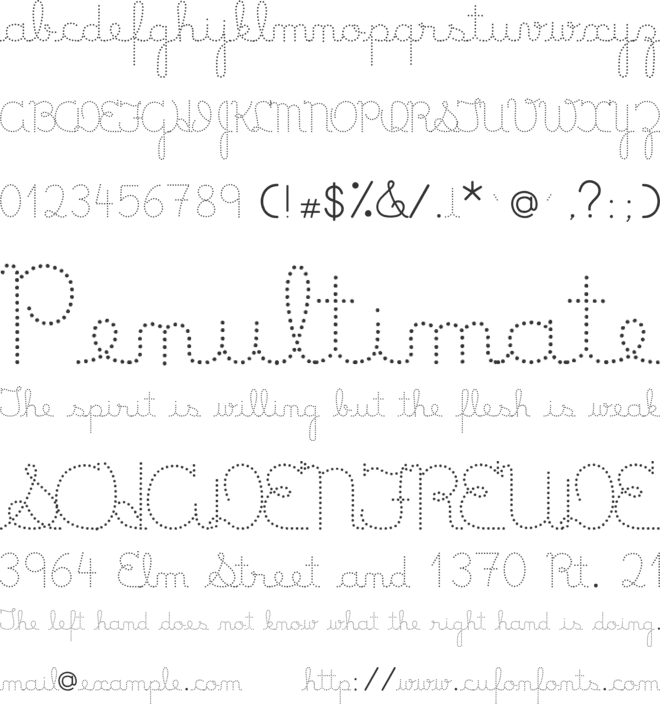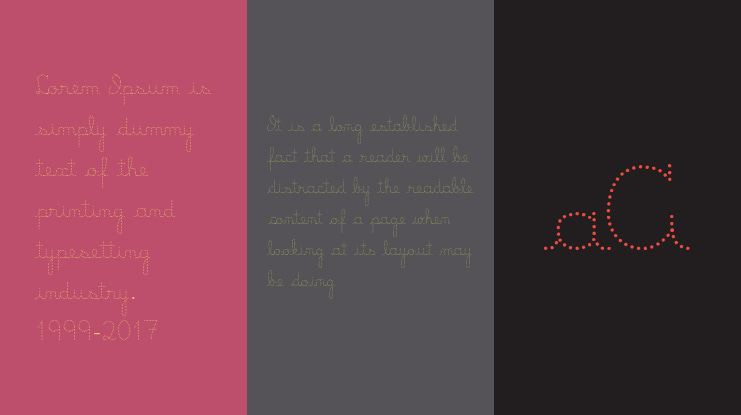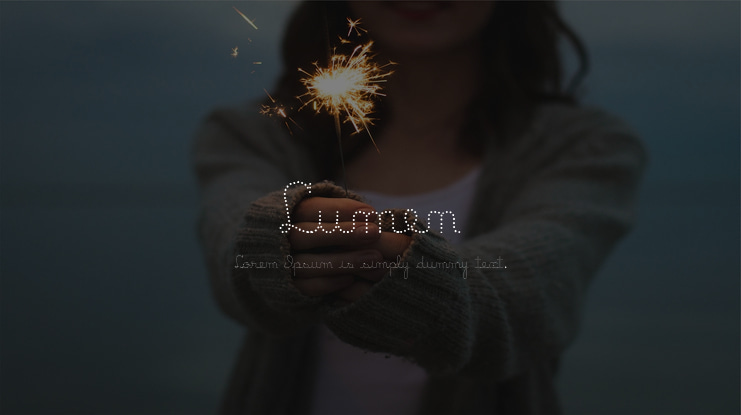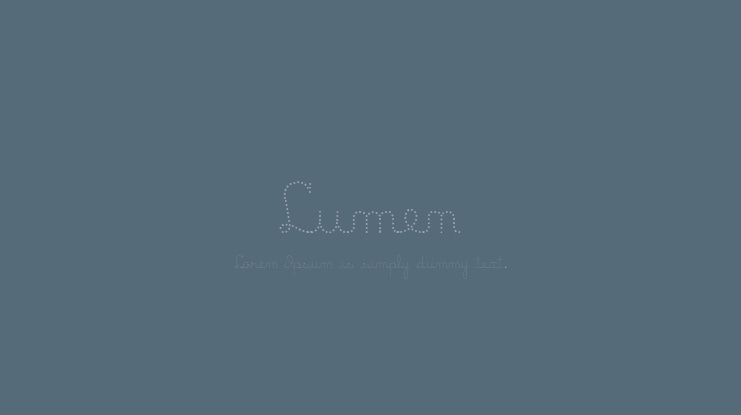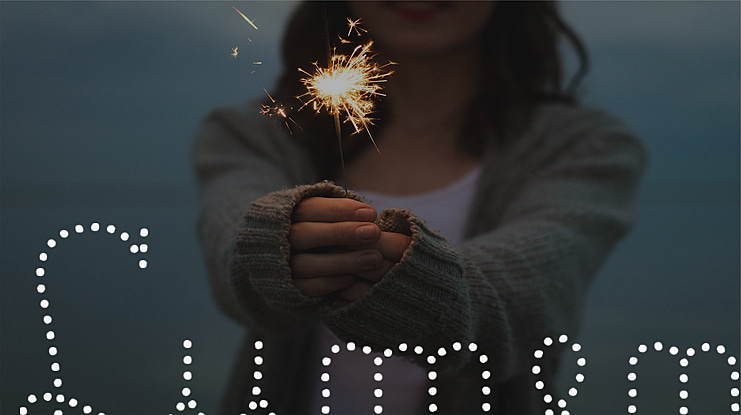
Lumen Font Family
This font was developed in partnership with an exceptional child educator specialized in motor skills and language learning. Use with childs to help teaching how to write. The ligatures are 80% efficient.